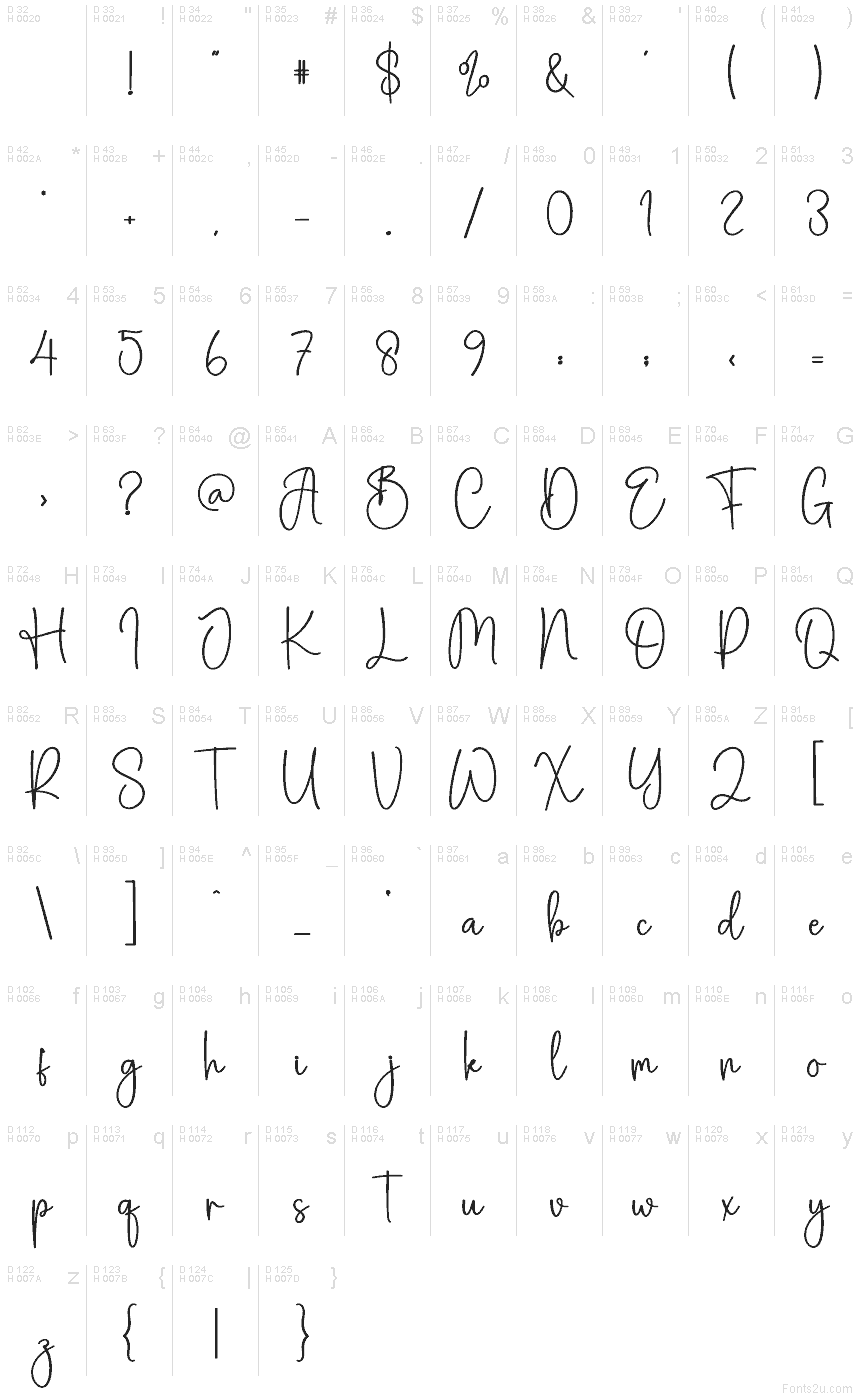
Ourstory
Ourstory font by Scratchones is an expressive handwritten style with a light and airy presence. This free handwritten font combines casual elegance with a contemporary appeal, offering an approachable tone in its friendly lettering. The effortlessly chic appearance captures the feeling of simplicity, achieving subtle stylish perfection all in one go.
The versatility of this font expands broadly throughout creative product labeling, business logos, advertising materials, storybooks and children’s books covers. Add personalization to wedding invitations and greeting card messages for heartfelt expressions or create high-impact branding strategies that appeal to wide audiences at all times!